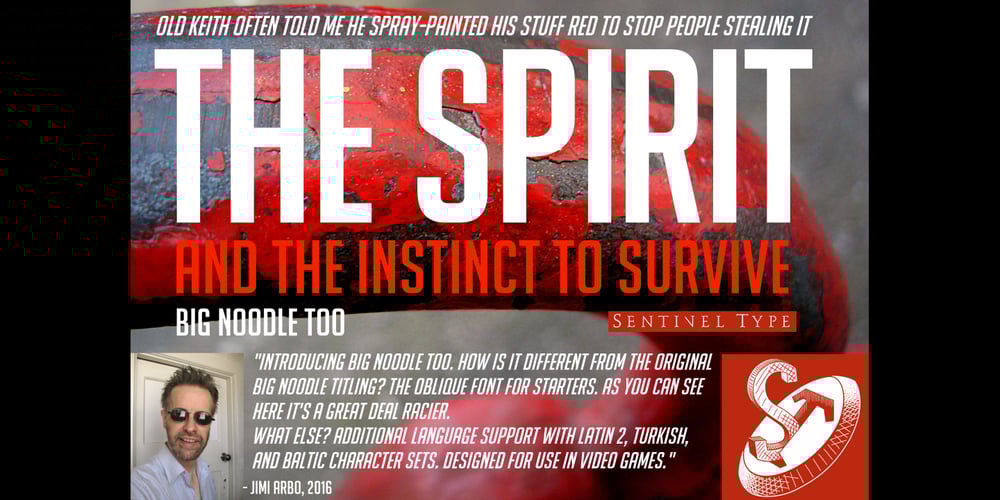
Big Noodle Too
Big Noodle Too font
Big Noodle Too Font Family was designed by James Arboghast and published by Sentinel Type. Big Noodle Too contains 4 styles and family package options. The success of the original Big Noodle Titling fonts is based partly on the squared letter body design being ideal for use in video games. Game maker Blizzard Entertainment comissioned me to make a custom version with extended language coverage including Latin 1, Latin 2, Turkish, Baltic and Cyrillic. Big Noodle Too oblique style is a fast slanter at 15 degrees. A generic set of capitals built on the gothic even width principle, built from squared forms Big Noodle Too delivers excellent clarity in any medium. Its key features are its utility and generic, unremarkable appearance. Patterned after countless squared grotesks and linears, Big Noodle Too is industrial in essence with a contemporary topography. One weight fits all. In OpenType & TrueType flavors.